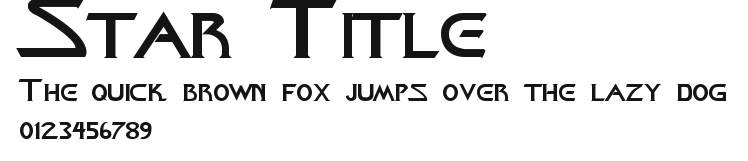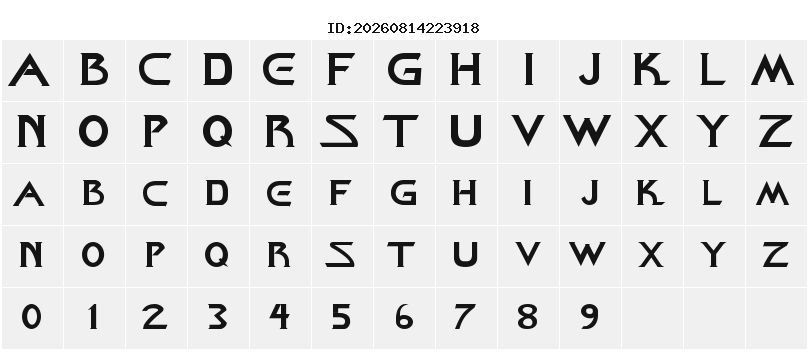
• Font Name: Star Title
Star Title.ttf is a modern, elegant sans-serif font designed for ultimate readability and visual harmony. Perfect for branding, headlines, web design, and print materials.